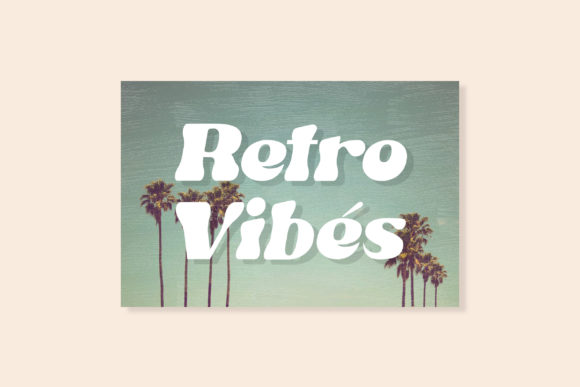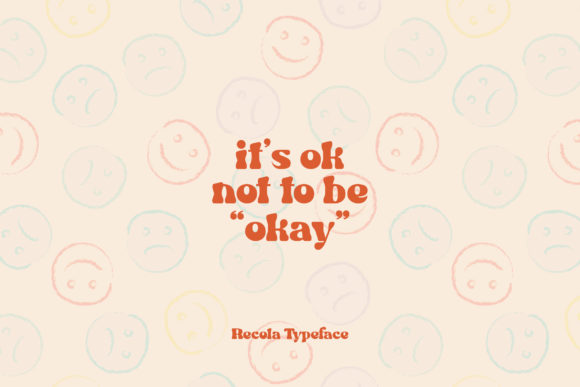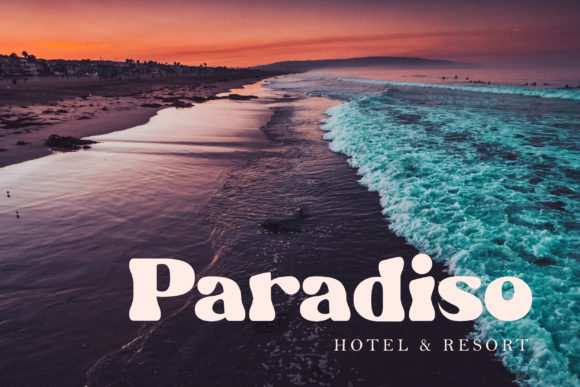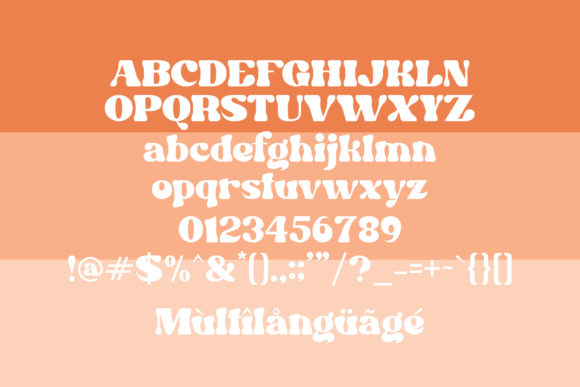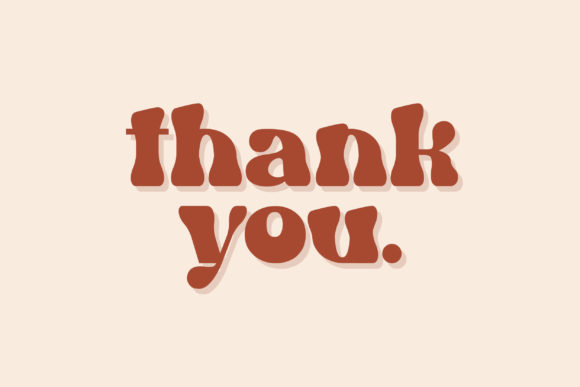
Introduction to Recola Font
Recola is a retro styled display font.
Playful and bold, this font will make each of your designs stand out Add it confidently to your projects, and you wonโt be disappointed.
Key Features of Recola Font
Why Choose Recola Font?
Recola Font offers exceptional quality and versatility, making it a valuable addition to your design toolkit. Whether you’re creating for personal projects or commercial use, Recola Font delivers professional results.